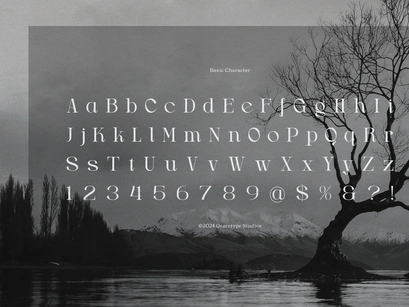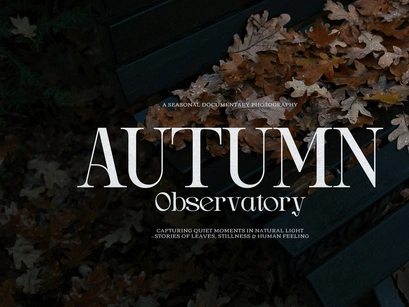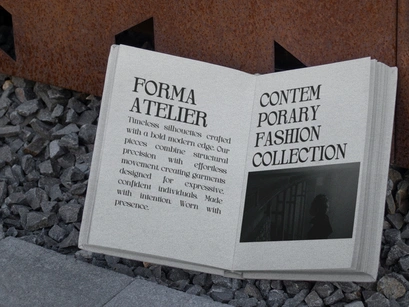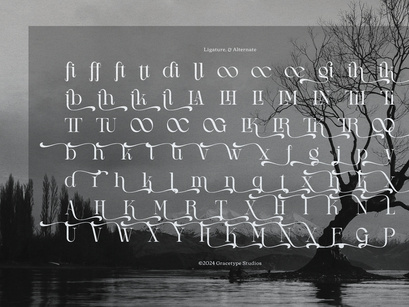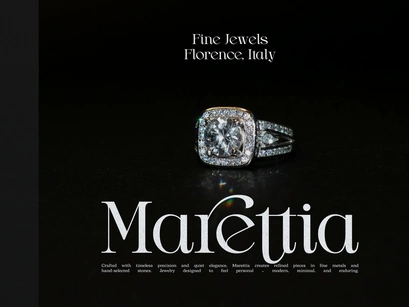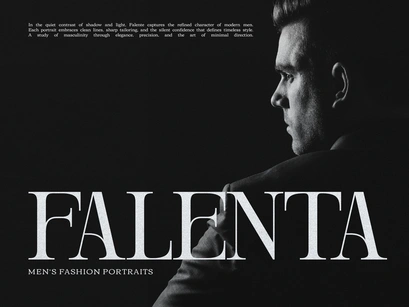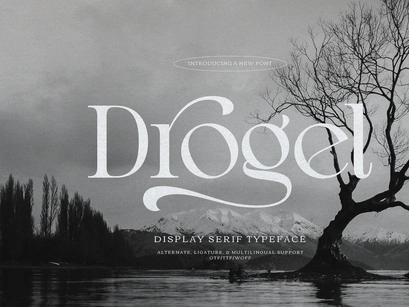
Drogel | Display Serif Font, from Gracetypestudio, suitable for any projects such as: logos, branding projects, homeware designs, product packaging, mugs, quotes, posters, shopping bags, t-shirts, book covers, name card, invitation cards, greeting cards, label, photography, watermark, special events, and all your other lovely projects that need a Serif taste.